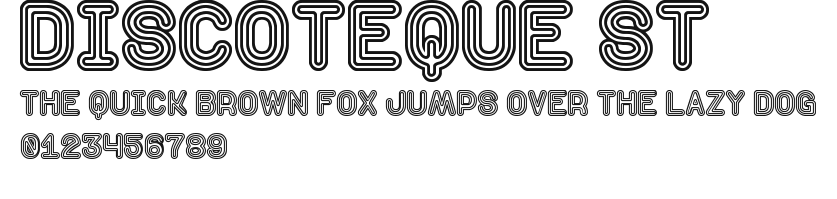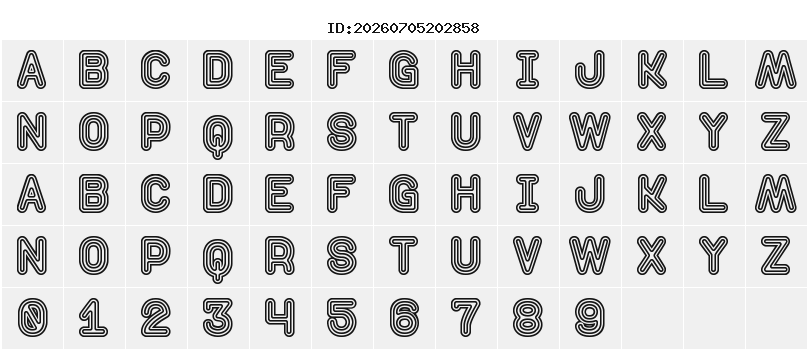
• Font Name: Discoteque St
• Designer: This font is an original work of southype dot com
About Discoteque St.ttf
Discoteque St.ttf is a modern, elegant sans-serif font designed for ultimate readability and visual harmony. Perfect for branding, headlines, web design, and print materials.